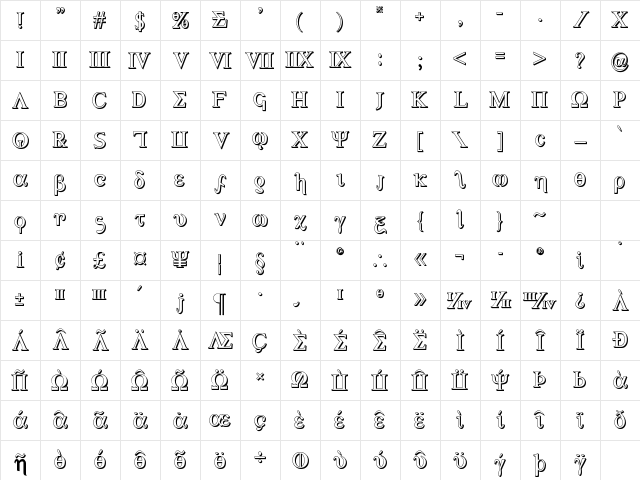
Achilles 3D Regular Free Font
Achilles 3D Regular
Design Context for Achilles 3D
Achilles 3D is a composed and adaptable typeface that performs quietly and consistently across a wide range of design contexts.